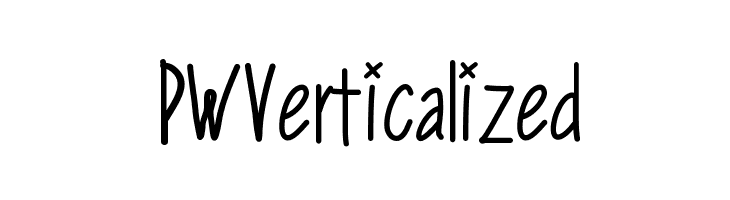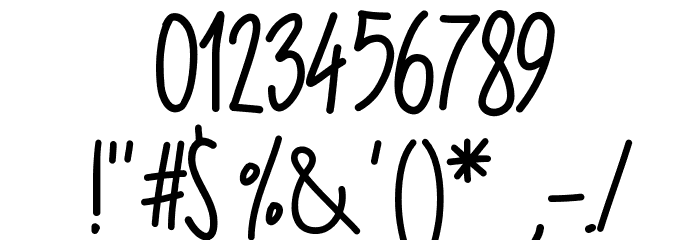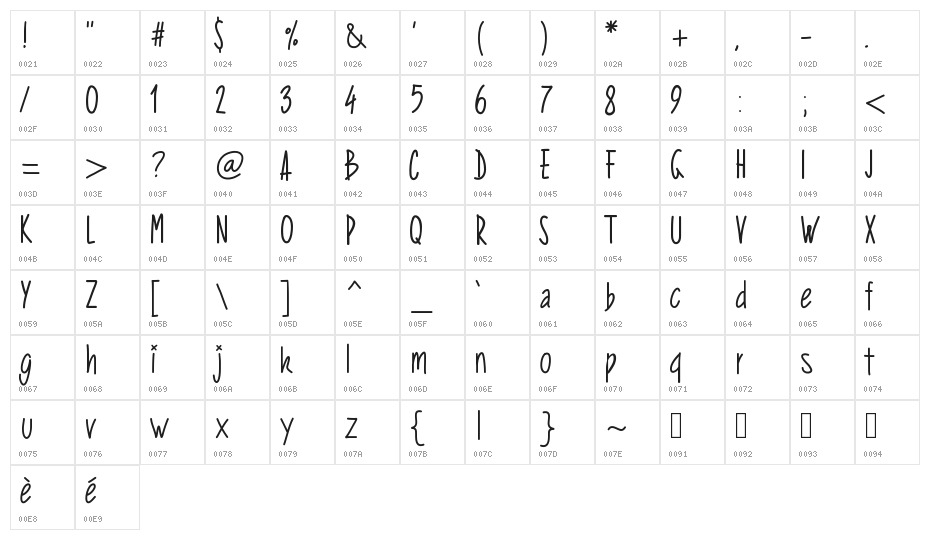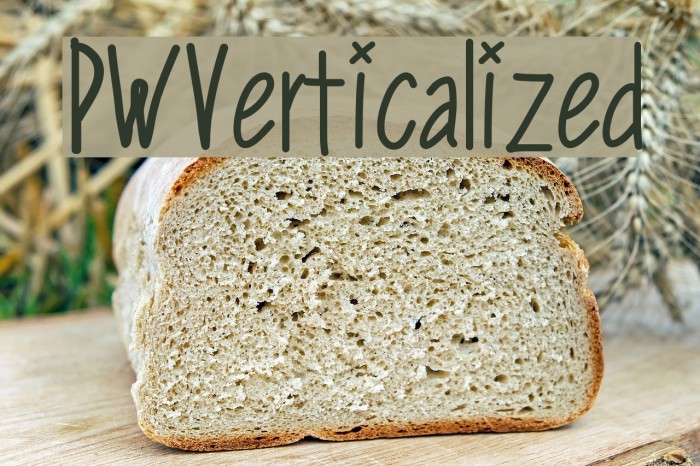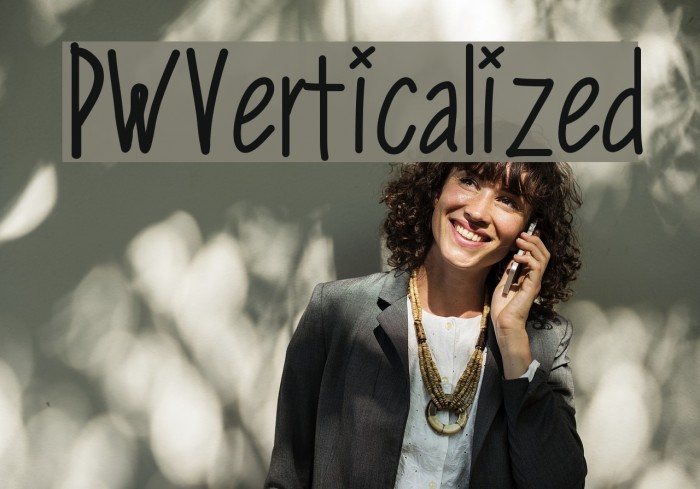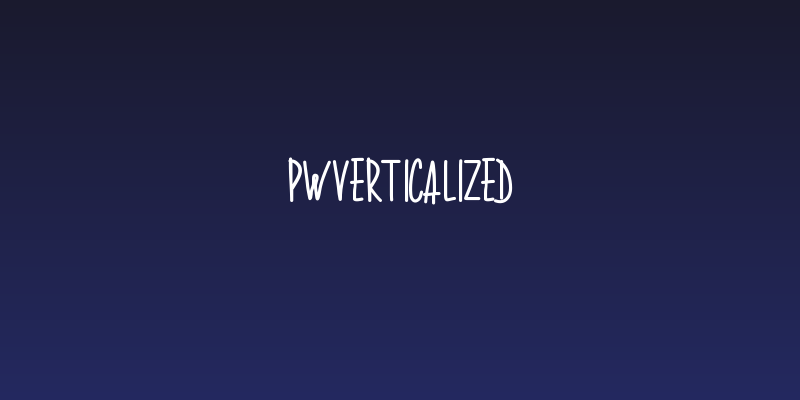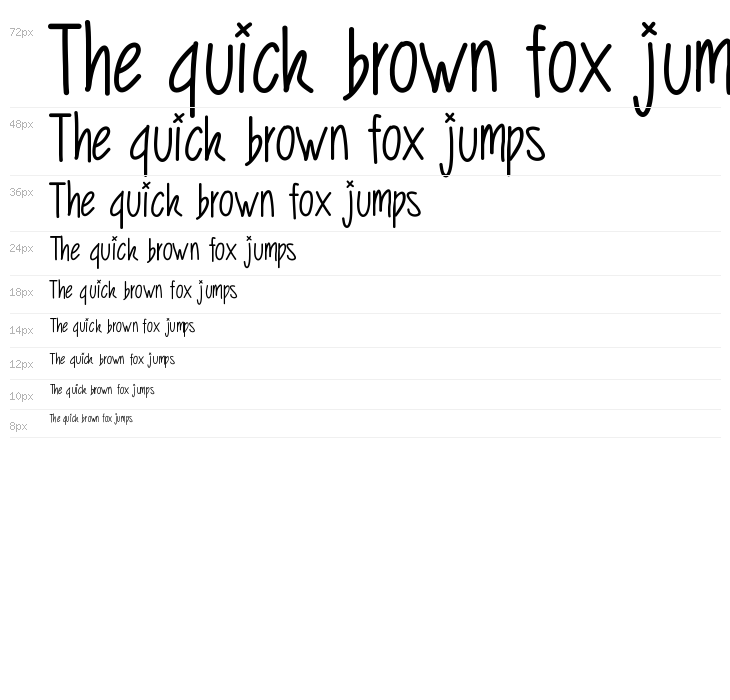
PWVerticalized Font
PWVerticalized Description
This font features a playful, handwritten style with tall, narrow characters that give it a vertical emphasis. The strokes are consistent in width, providing a uniform appearance across all characters. The uppercase letters are bold and prominent, while the lowercase letters maintain a similar height, enhancing readability. Numbers and special characters are crafted with the same playful touch, making them blend seamlessly with the alphabet. The overall design is casual and friendly, suitable for projects that require a personal or informal touch.
| Proposed Projects | Ideal for greeting cards, children's books, casual branding, and social media graphics. |